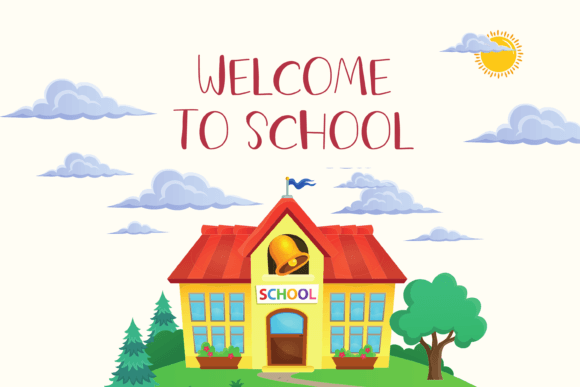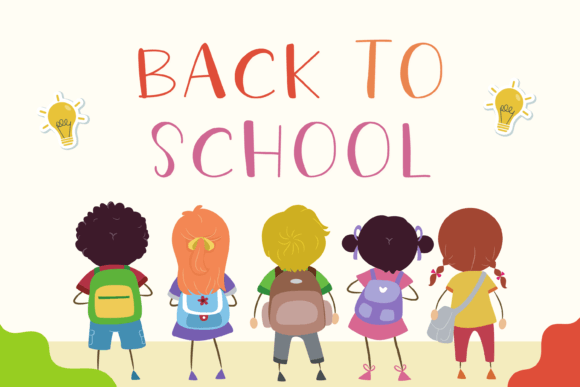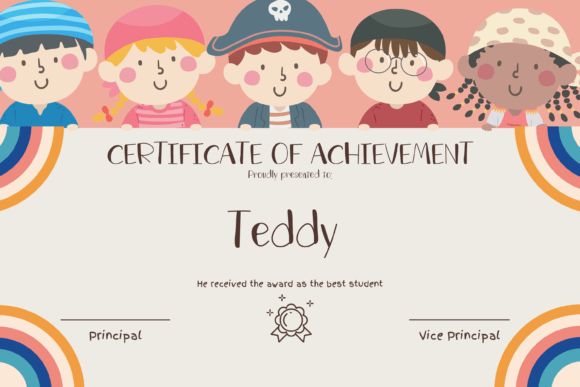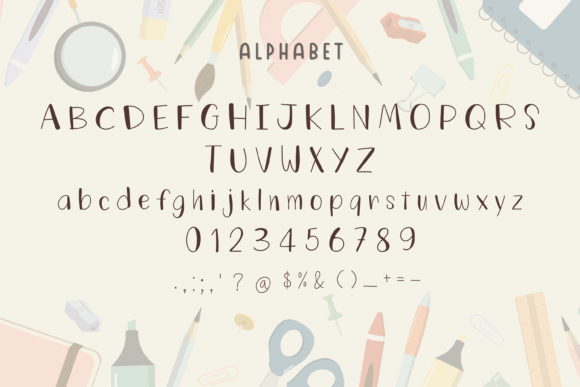
Introducing Child Font: The Ultimate Display Font for Creative Designs
Are you a designer or crafter looking for a font that can add a touch of cuteness and playfulness to your designs? Look no further than Child Font, an adorable handwritten font that is sure to enhance each of your creative projects. With its bold and colorful display, Child Font is the perfect addition to any design that needs a dash of whimsy and fun.
What Makes Child Font So Special?
Child Font is a unique and eye-catching font that is designed to make your designs stand out. Its handwritten style gives it a personal and approachable feel, making it perfect for designs that need a touch of warmth and personality. The font’s bold and colorful display ensures that it will grab attention and add a pop of fun to any design.
Key Features of Child Font
- Adorable Handwritten Style: Child Font features a sweet and charming handwritten style that is sure to delight.
- Bold and Colorful Display: The font’s bold and colorful display makes it perfect for designs that need to grab attention.
- Versatile and Flexible: Child Font can be used for a wide range of designs, from digital projects to print materials.
- Easy to Read and Understand: Despite its playful style, Child Font is easy to read and understand, making it perfect for designs that need to communicate a message.
How to Use Child Font in Your Designs
Child Font is incredibly versatile and can be used in a wide range of designs, including:
- Digital Projects: Use Child Font in your digital projects, such as social media graphics, blog posts, and website headers.
- Print Materials: Add Child Font to your print materials, such as brochures, flyers, and posters.
- Crafting Projects: Use Child Font in your crafting projects, such as handmade cards, scrapbooking, and DIY decorations.
Tips for Getting the Most Out of Child Font
To get the most out of Child Font, here are a few tips to keep in mind:
- Experiment with Colors: Child Font looks great in a variety of colors, so don’t be afraid to experiment and find the perfect hue for your design.
- Mix and Match with Other Fonts: Child Font pairs well with other fonts, so try mixing and matching it with different styles to create a unique look.
- Use it Sparingly: While Child Font is a fun and playful font, it can be overwhelming if used too much. Use it sparingly to add a touch of whimsy to your design.
In conclusion, Child Font is a unique and versatile font that is perfect for designers and crafters looking to add a touch of cuteness and playfulness to their designs. With its bold and colorful display, adorable handwritten style, and ease of use, Child Font is sure to enhance each of your creative projects. So why wait? Download Child Font today and start bringing your designs to life!
Key Benefits of Child Font
- Adds a touch of cuteness and playfulness to designs
- Perfect for digital and print projects
- Versatile and flexible